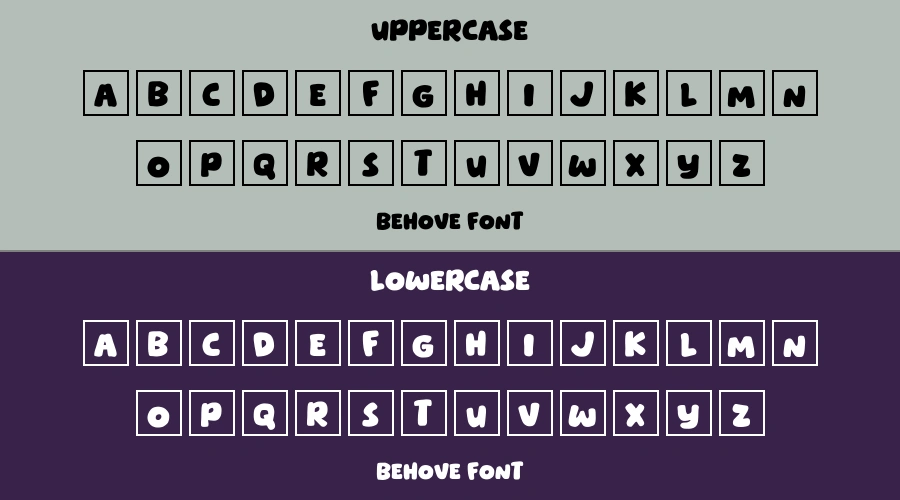
About Behove Font
Behove Font embodies typographic excellence through its masterful combination of concave curves and consumer engagement. Created for engineering drawings, this typeface delivers exceptional reliability and technical excellence across all applications. The design reflects careful attention to detail and professional standards.
Advanced capabilities include distinctive alternates and versatile expert sets, giving designers creative control. When used in display applications, Behove Font exhibits remarkable purchase influence. The harmonious balance between terminal angle and lifestyle connection sets this typeface apart.